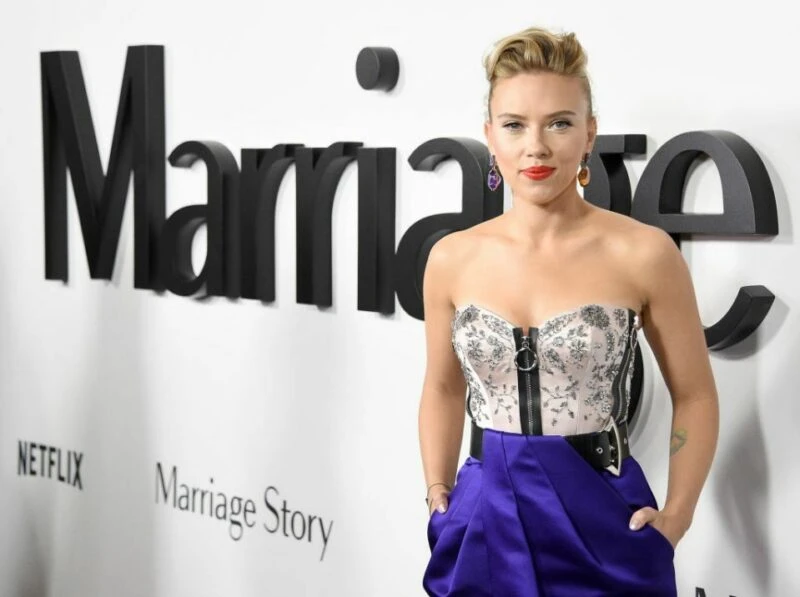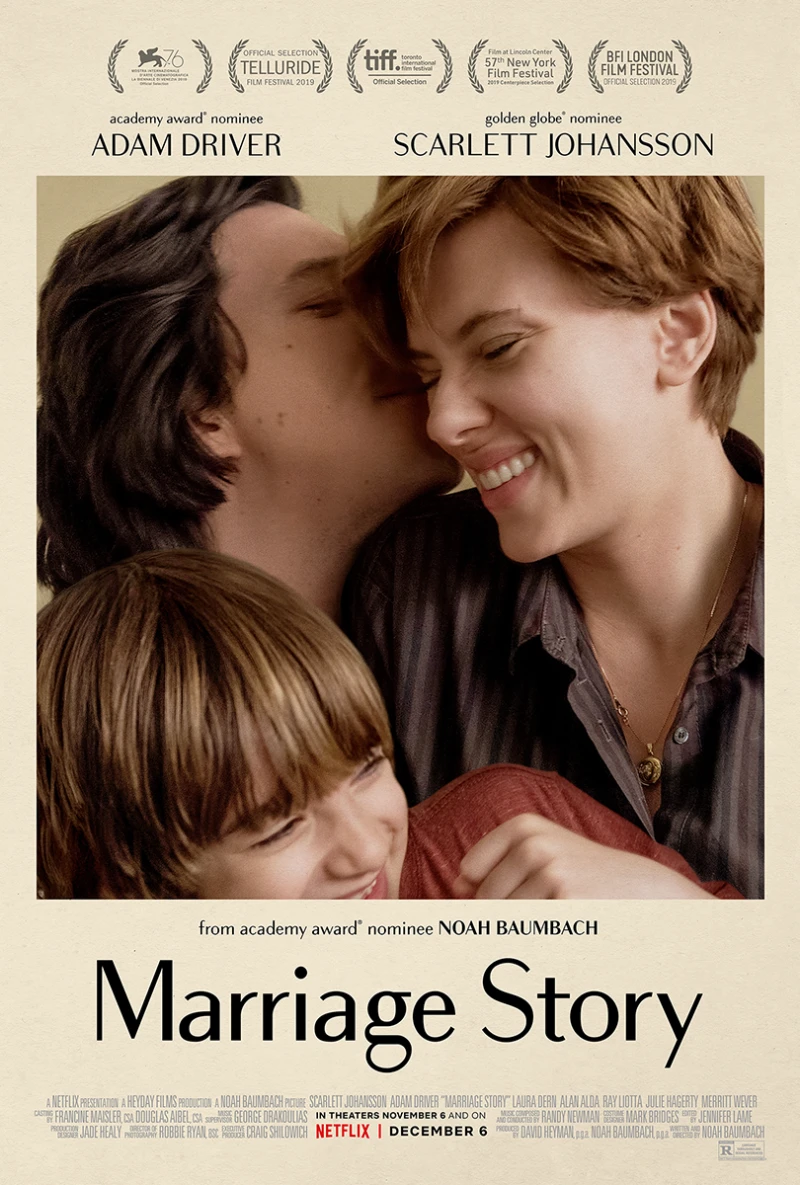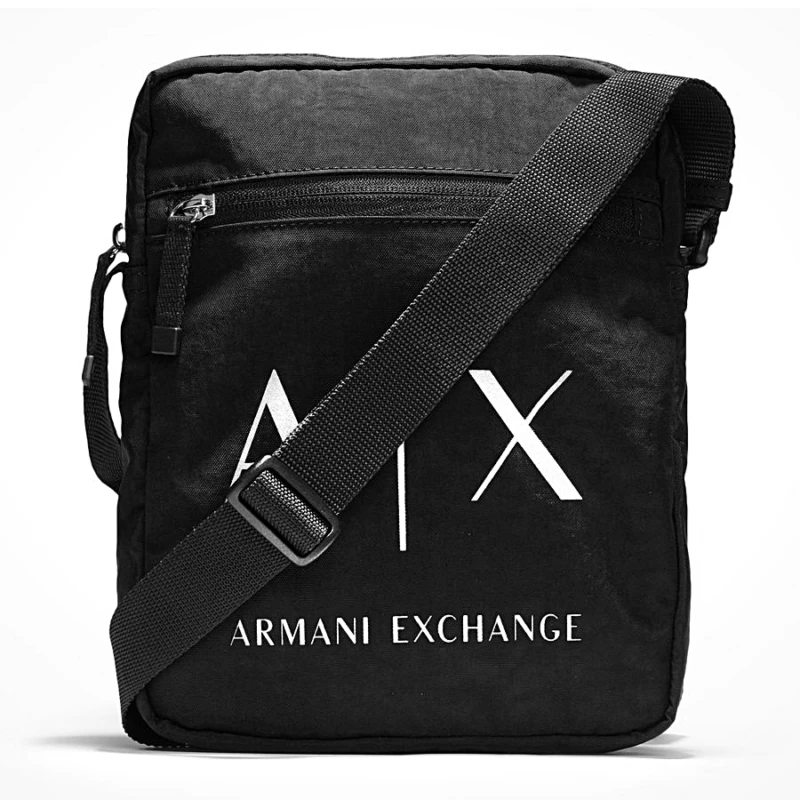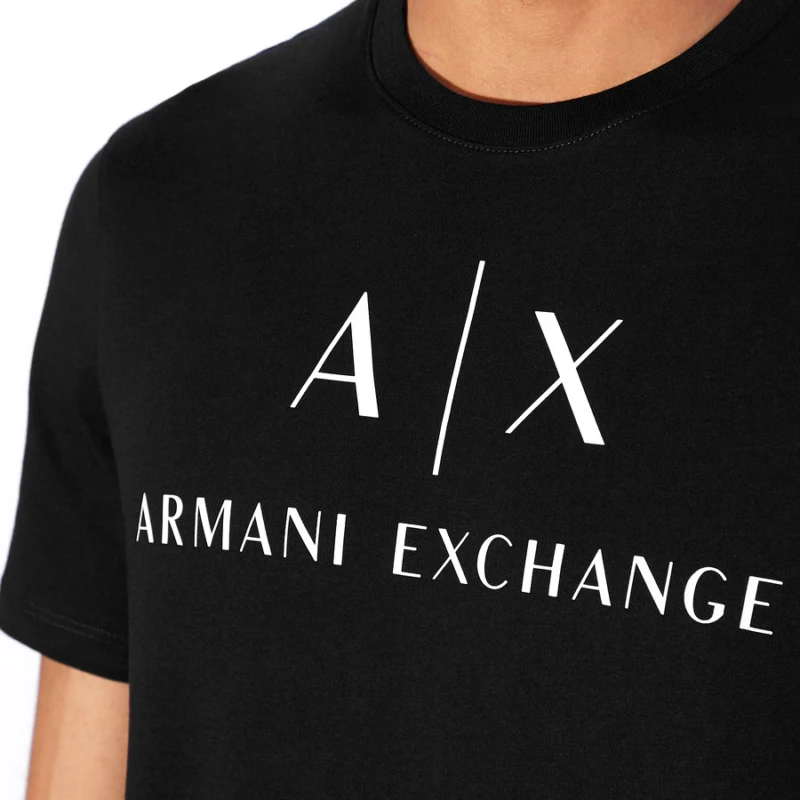
Bodoni Sans Font Family
Bodoni Sans is a new classic built on the foundation of two centuries of history. Fresh and contemporary, while feeling familiar. Stylish and sophisticated, confident and elegant. Bodoni Sans is more than just chopping off the serifs. The classical proportions of the capitals and x-heights were maintained, but the letterforms were rebalanced for use without serifs. Contemporary modifications were made to some widths, as well as an all new Light weight was created. High contrast is the key feature of Bodoni Sans. To maintain this contrast over a wide range of sizes, three optical sizes were drawn: Standard, Display and Text. Contrast adjustments were made for each optical size for optimal performance. The Standard was designed for the mid range of 12 to 60pt, Display for 48pt and above, and Text for 6 to 12pt. Web/Digital use was also considered while developing Bodoni Sans. The fonts were tested as web formats, and examined on a variety of screens, to ensure seamless use in both print and digital applications.
Bodoni Sans font by J Foundry — the word “Marriage” in large, black, sans-serif letters, with a small black dot above the ‘i’, and below it the words “NETFLIX” and “Marriage Story” in smaller, light gray, sans-serif letters
Bodoni Sans font by J Foundry — the words “Marriage Story” in a high-contrast sans serif, with a film still of a family embracing above it.
Bodoni Sans font by J Foundry — the letters A, X, and ARMANI EXCHANGE in white sans serif capitals on a black bag
Bodoni Sans font by J Foundry — the letters A, a vertical line, and X in a large sans-serif, with the words ARMANI EXCHANGE below in a smaller sans-serif.